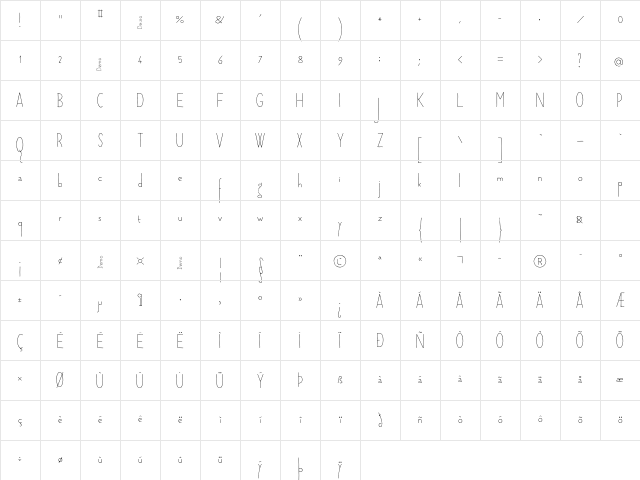
Complete Hopefulgiraffe Demo Demo glyph index. Displaying only characters natively supported by Hopefulgiraffe Demo Demo font.
Hopefulgiraffe Demo is a composed and adaptable typeface that performs quietly and consistently across a wide range of design contexts.